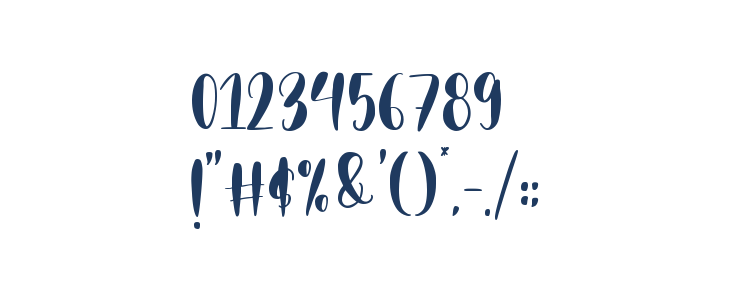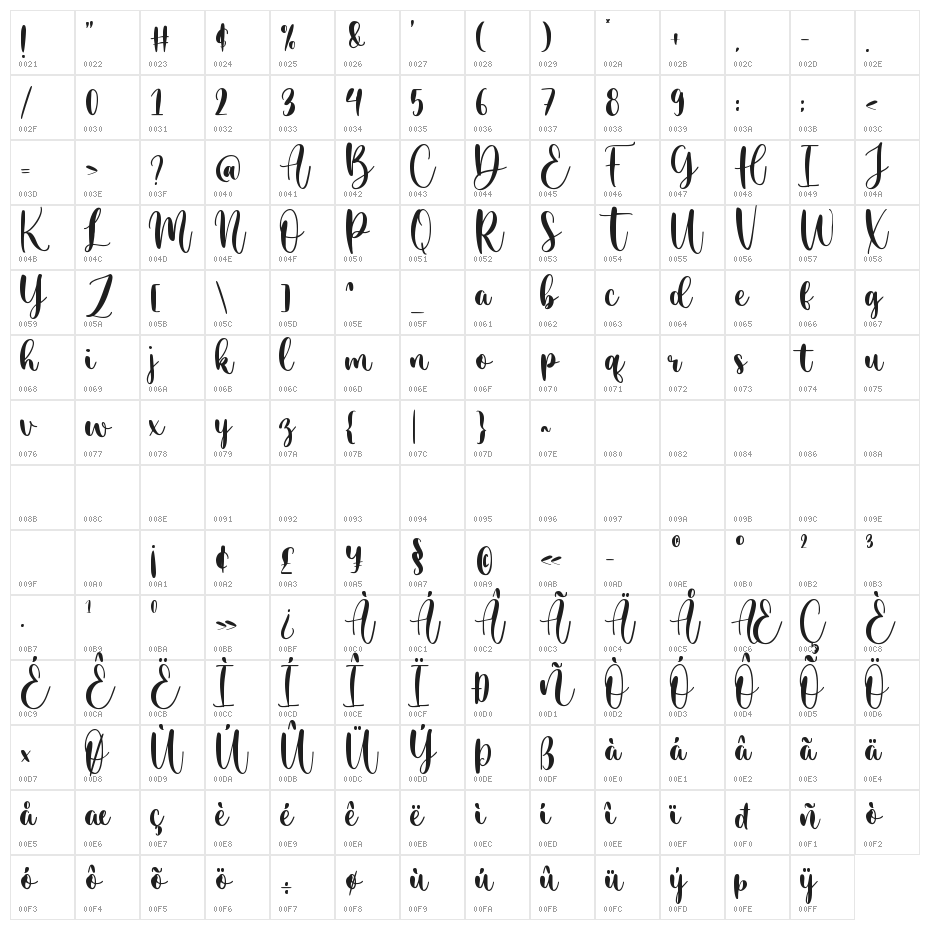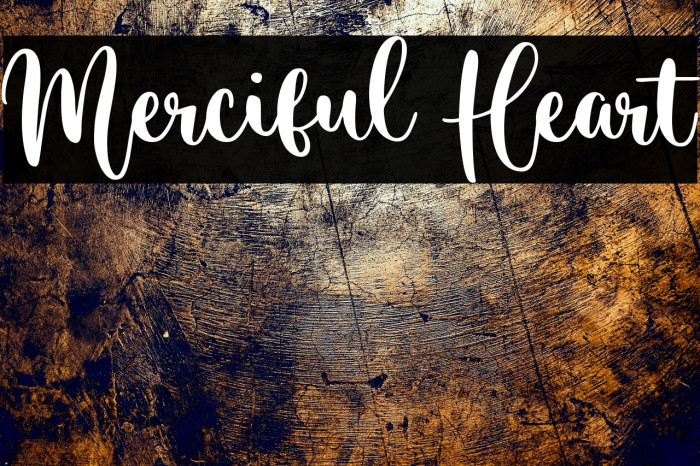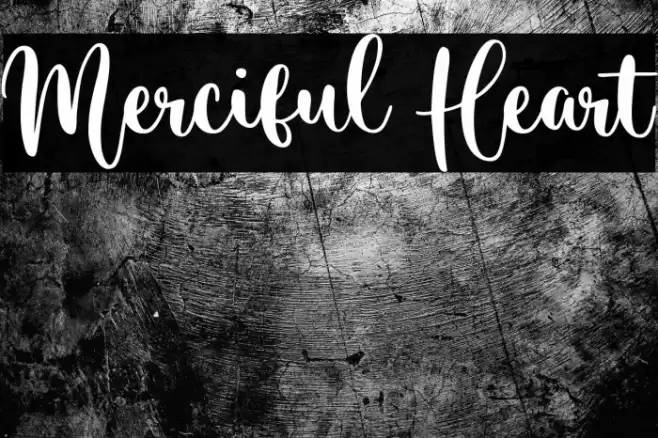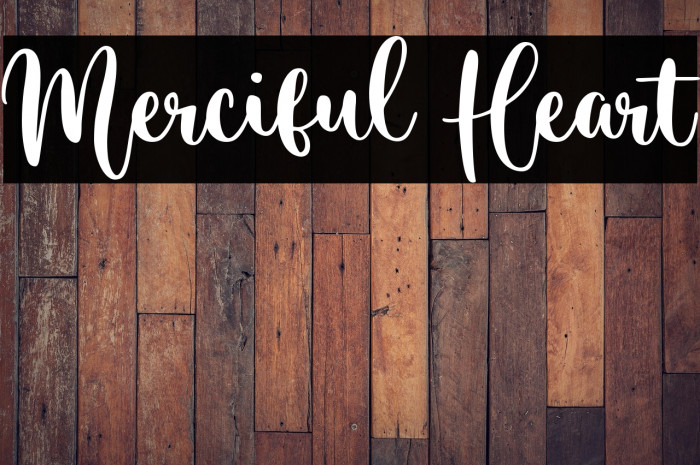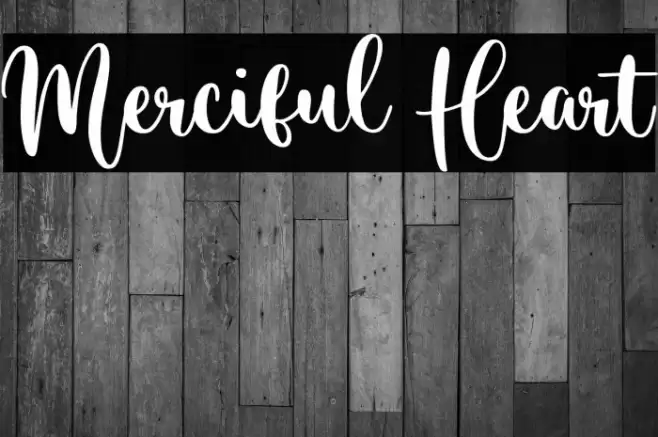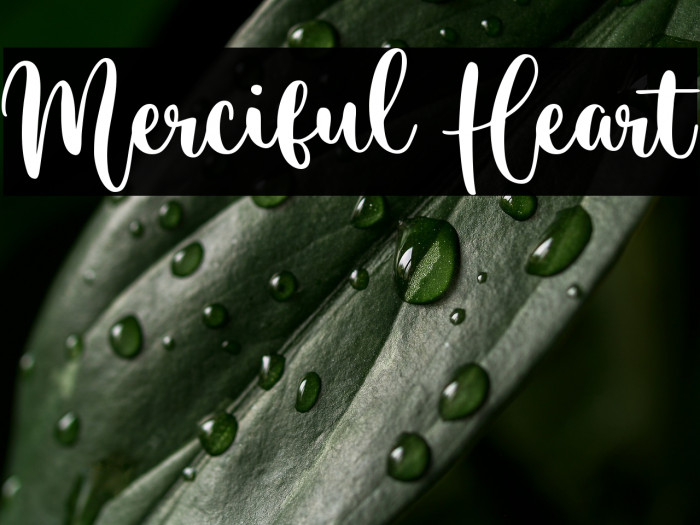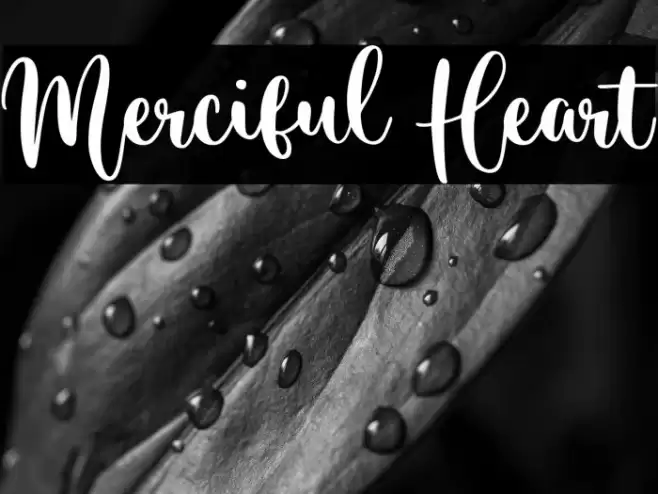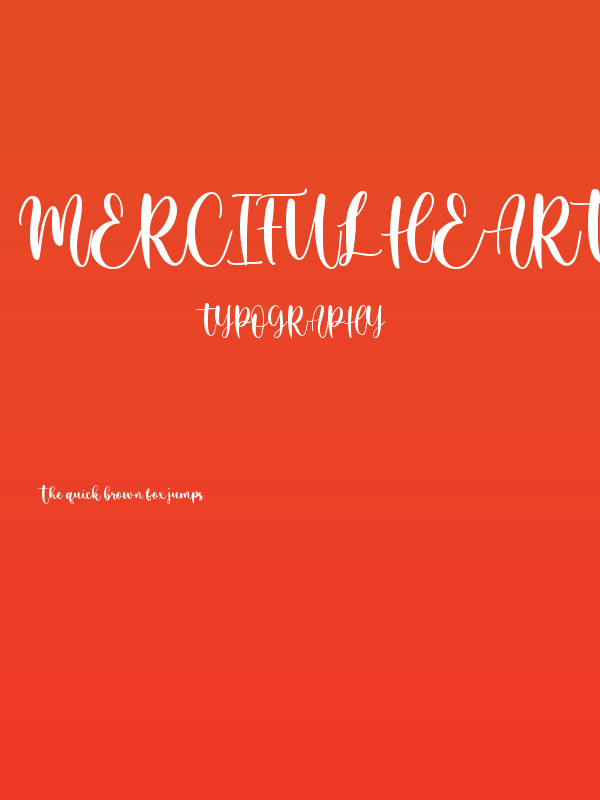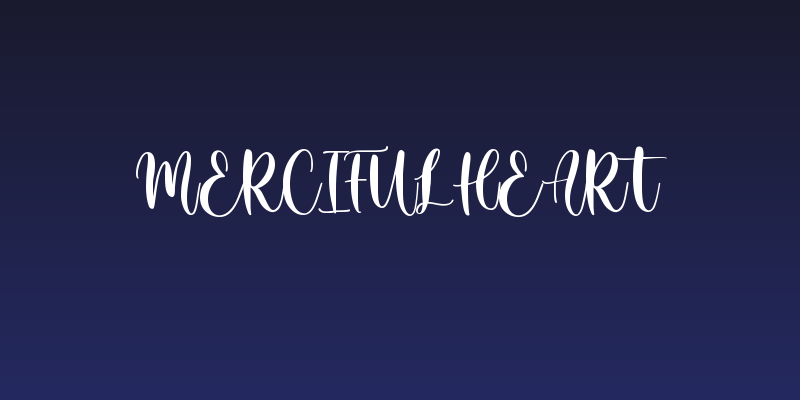
Merciful Heart Font
Merciful Heart Description
This font exudes a playful and elegant charm, characterized by its flowing, cursive style. The letters are connected with smooth, sweeping strokes that give a sense of fluidity and grace. The uppercase letters are bold and expressive, while the lowercase letters maintain a consistent rhythm, enhancing readability. The numbers and special characters follow the same stylistic cues, ensuring a cohesive look across all text. This font's design is both artistic and functional, making it suitable for a variety of creative applications.
Use CaseLogos, Headlines, Invitations
Proposed ProjectsIdeal for wedding invitations, greeting cards, branding, and social media graphics.